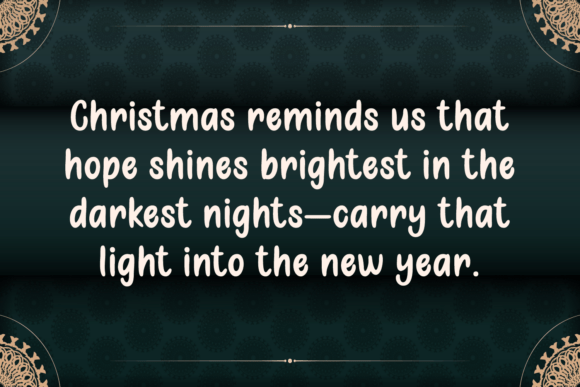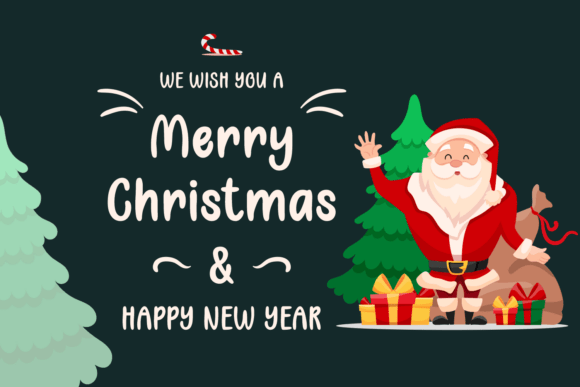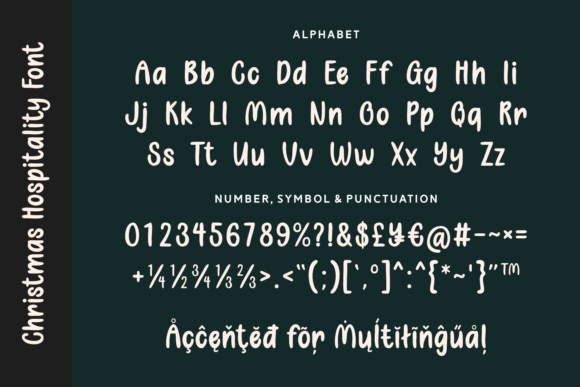
Christmas Hospitality Font: Spread Holiday Cheer with this Festive Typeface
The holiday season is upon us, and with it comes the desire to create festive and inviting designs that capture the warmth and magic of Christmas. Introducing the Christmas Hospitality font, a delightful and cheerful typeface designed to bring a friendly and welcoming vibe to all your holiday projects. In this article, we’ll dive into the features and benefits of this wonderful font, and explore how it can elevate your Christmas designs.
A Font that Embodies the Spirit of Christmas
Christmas Hospitality is a carefully crafted font that embodies the spirit of the holiday season. Its smooth curves and playful character make it perfect for creating festive designs that exude warmth and coziness. Whether you’re designing Christmas cards, invitations, posters, gift tags, or party decorations, this font is sure to add a touch of holiday magic to your creations.
One of the standout features of the Christmas Hospitality font is its versatility. Its style works beautifully for both print and digital projects, making it a must-have for your Christmas font collection. Use it to create:
• Christmas cards and invitations that will make your loved ones feel special
• Festive posters and flyers that will grab attention and spread holiday cheer
• Gift tags and wrapping paper that will add a personal touch to your presents
• Party decorations and social media posts that will get your followers in the holiday mood
• Holiday branding and product packaging that will make your business stand out
• Cozy home décor and seasonal displays that will make your home feel festive and inviting
Why Choose Christmas Hospitality Font?
So, what sets Christmas Hospitality apart from other holiday fonts? Here are just a few reasons why designers and crafters love this font:
• Unique character: Christmas Hospitality has a distinctive and playful character that will add a touch of personality to your designs
• Easy to read: The font’s smooth curves and clear lettering make it easy to read, even at small sizes
• Highly versatile: Use it for a wide range of projects, from print to digital, and from simple to complex designs
• Instantly festive: The font’s holiday theme is instantly recognizable, making it perfect for creating festive designs that will get people in the holiday spirit
Tips for Using Christmas Hospitality Font
To get the most out of the Christmas Hospitality font, here are a few tips to keep in mind:
• Experiment with colors: Try pairing the font with different colors and textures to create unique and eye-catching designs
• Play with sizes: Use the font in different sizes to create visual interest and hierarchy in your designs
• Add festive graphics: Combine the font with festive graphics, such as holly, snowflakes, or reindeer, to create designs that are truly special
• Keep it simple: Don’t be afraid to keep your designs simple and elegant – the font’s playful character will still shine through
The Christmas Hospitality font is a wonderful addition to any designer’s or crafter’s toolkit. Its warm and cheerful character, versatility, and ease of use make it perfect for creating festive designs that will spread holiday cheer. Whether you’re designing for print or digital, this font is sure to bring a touch of holiday magic to your creations. So why wait? Get creative with Christmas Hospitality font today and make this holiday season one to remember!